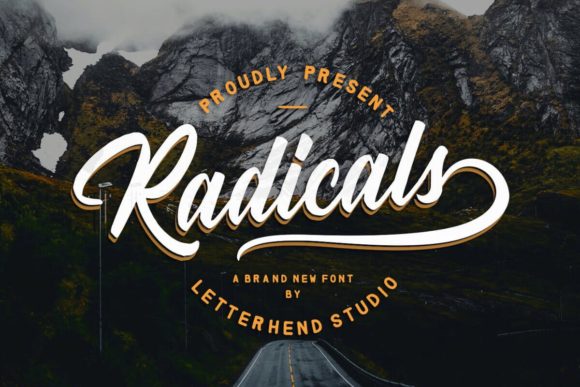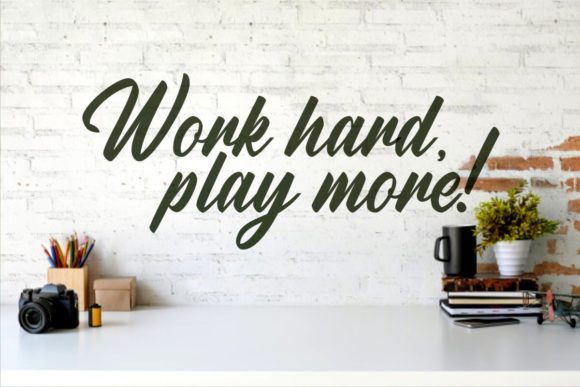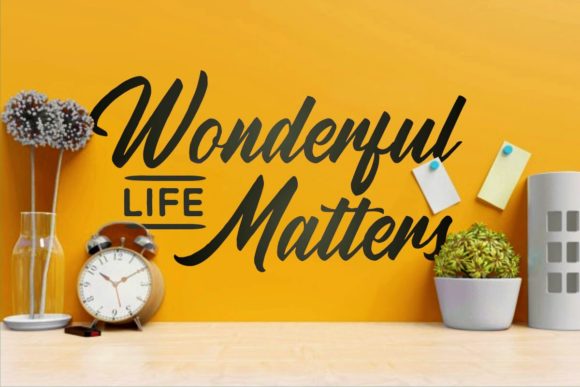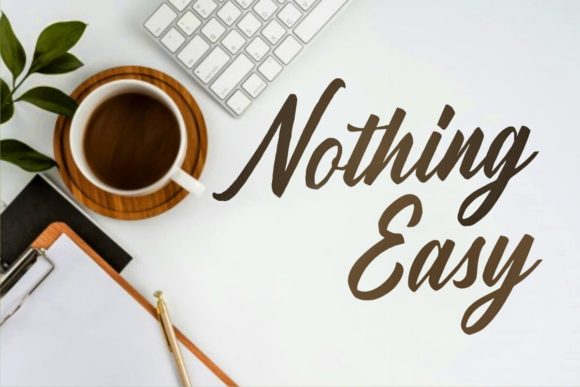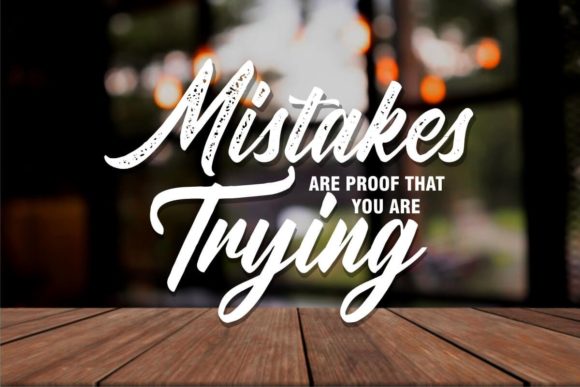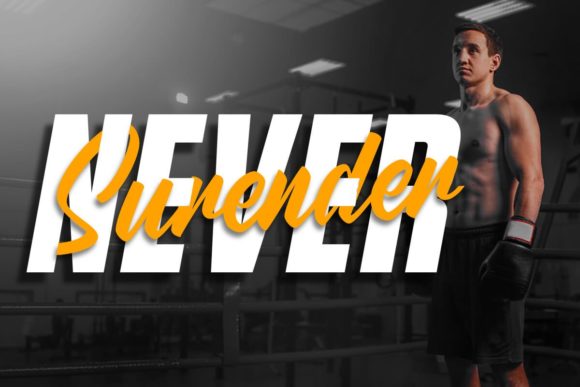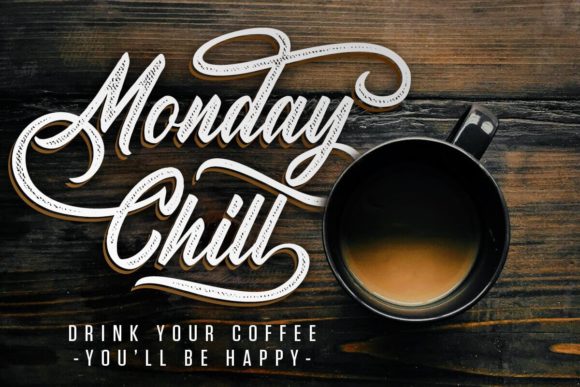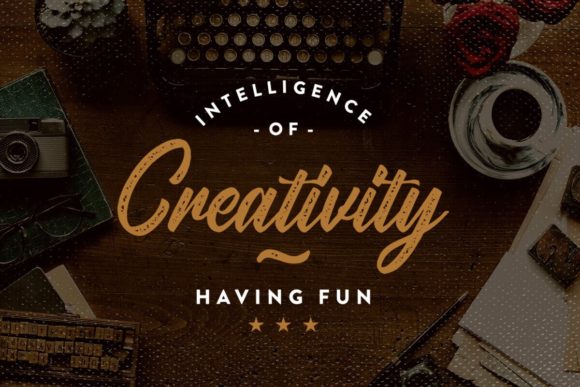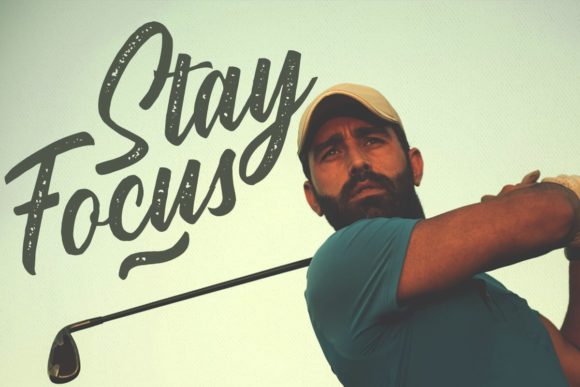
HomeScript FontsRadicals Font Script Fonts Radicals Font FacebookXPinterestWhatsApp Radicals Font Poster 2 Radicals Font Poster 3 Radicals Font Poster 4 Radicals Font Poster 5 Radicals Font Poster 6 Radicals Font Poster 7 Radicals Font Poster 8 Radicals Font Poster 9 About Radicals Font Radicals is a charming and modern script font with a unique style. Get inspired by its friendly nature! DOWNLOAD NOW People also explored Heather BTN Grunge Hearts Font Marlita Font Mimitee Font Hello Paradise Font Candy Christmas Font Filmotype Candy Fathir Font Arena Sky Font 347 0 TagsRadicals Font Previous articleBlack Kutten FontNext articlePhilomena Font LEAVE A REPLY Cancel reply Comment: Please enter your comment! Name:* Please enter your name here Email:* You have entered an incorrect email address! Please enter your email address here Website: Save my name, email, and website in this browser for the next time I comment. Personal Use Free Miracles Personal Use Free Read more about this font Short Message Personal Use Free Read more about this font Planning Personal Use Free Read more about this font Charletto Personal Use Free Read more about this font BLOG Fonts That Capture the Spirit of New York City New York City is more than just a place—it’s an experience, a rhythm, a visual language... To increase your work productivity, choose the most readable fonts. Best Fonts for YouTube Videos: Make Your Thumbnails Stand Out Best Fonts for T-Shirt Design – Top 2025 Picks